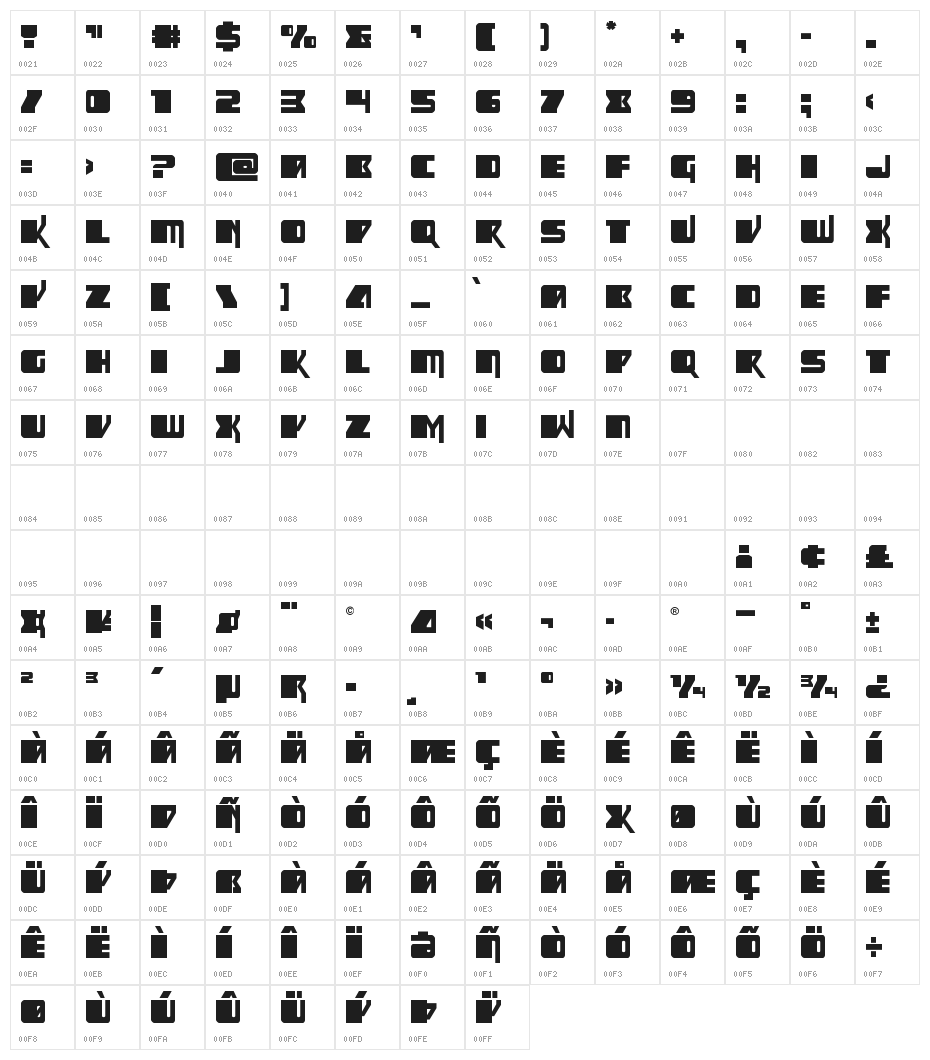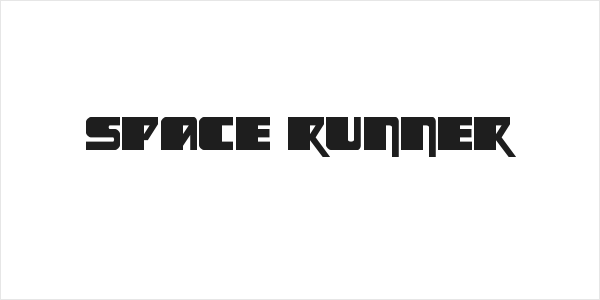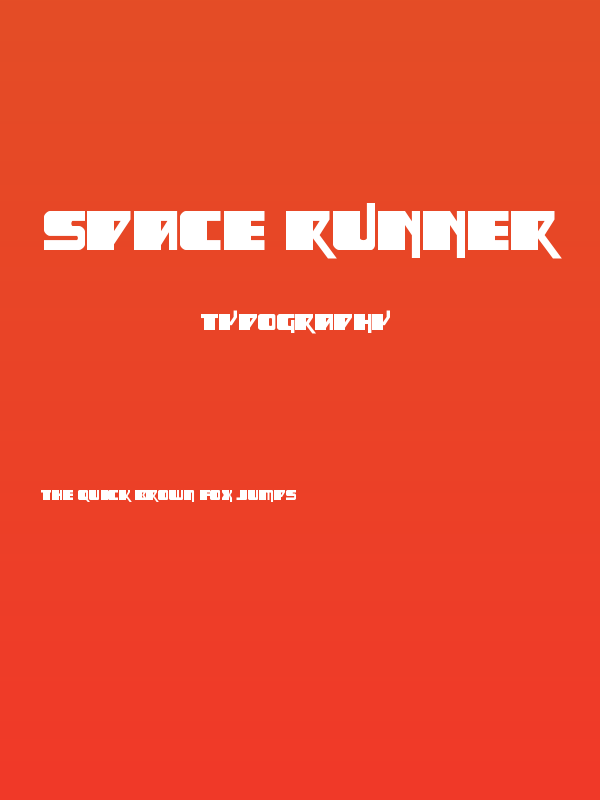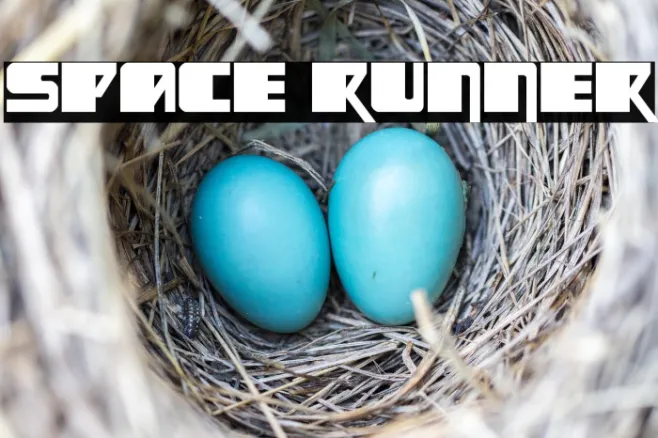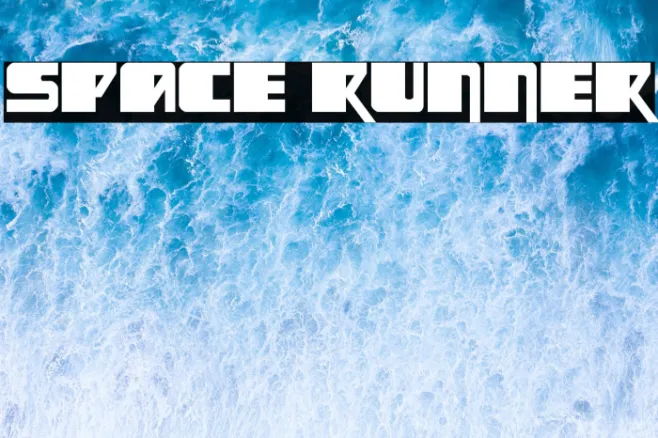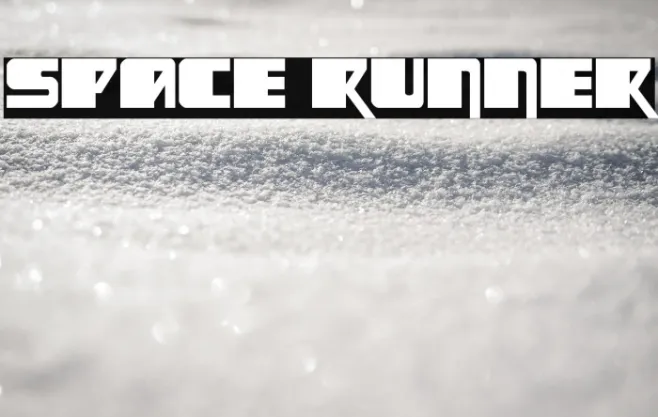
Space Runner Font
Space Runner Description
This font features a bold, futuristic design with angular and geometric shapes. The characters are blocky and robust, giving a sense of strength and modernity. The uppercase and lowercase letters maintain a consistent style, with sharp edges and a slightly condensed form. Numbers and special characters follow the same design principles, ensuring uniformity across all glyphs. The font's unique style makes it stand out, ideal for projects that require a modern and tech-inspired aesthetic.
| Proposed Projects | Ideal for sci-fi themed designs, tech branding, video game titles, and futuristic posters. |